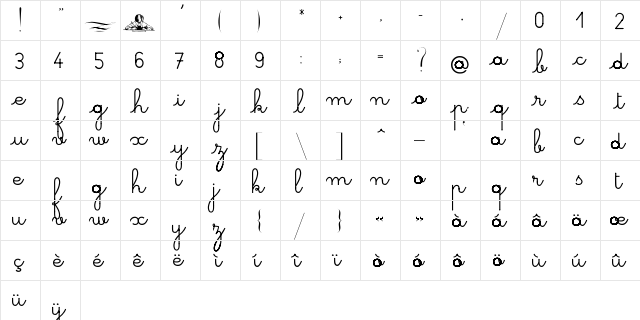
Ecole Cursive Texte Regular
| Designer | Big Jack FEYS |
Design Context for Ecole Cursive Texte Typeface
Ecole Cursive Texte brings a calligraphic fluidity to the page — its connecting strokes and expressive curves give it an unmistakably human quality.